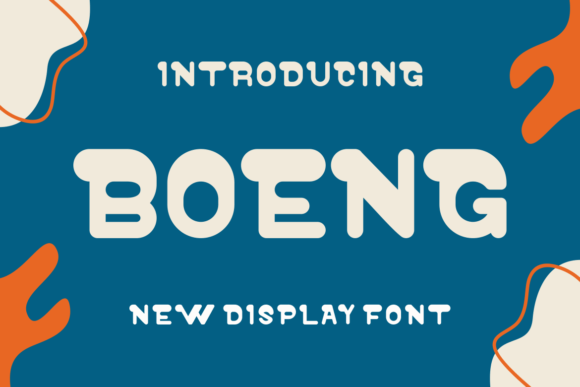
The Ultimate Guide to Boeng Font: Unleash Your Creative Potential
I’ll never forget the time I was working on a project for a client who wanted a bold, eye-catching font to make their brand stand out. I spent hours scouring the internet for the perfect font, but nothing seemed quite right. That was until I stumbled upon Boeng Font. This modern and bold display font has been a game-changer for my design work, and I’m excited to share its awesomeness with you! 😊
An Honest Review of Boeng Font
What I Love About Boeng Font ✨
• ✅ Unique and Natural Style: Boeng Font has a one-of-a-kind style that’s both natural and unique, making it incredibly versatile for a wide range of designs.
• ✅ Bold and Eye-Catching: This font is perfect for making a statement, grabbing attention, and adding a touch of personality to your designs.
• ✅ Easy to Read: Despite its boldness, Boeng Font remains surprisingly easy to read, even in smaller sizes.
• ⚠️ Limited Use Cases: While Boeng Font is amazing for display purposes, it might not be the best choice for body text or smaller sizes.
• ⚠️ Glyph Limitations: Some users have reported that the font could benefit from more glyphs and special characters.
The Backstory of Boeng Font
Boeng Font was designed with the goal of creating a unique and bold display font that could add personality to any design. Inspired by natural forms and shapes, the font’s creator aimed to craft a typeface that’s both modern and timeless.
Font Name Boeng Font
Author Marvadesign
Q: What is Boeng Font best used for?
Boeng Font is perfect for display purposes, such as headlines, titles, and promotional materials.
Q: Is Boeng Font suitable for body text?
While Boeng Font is amazing for display purposes, it might not be the best choice for body text or smaller sizes.